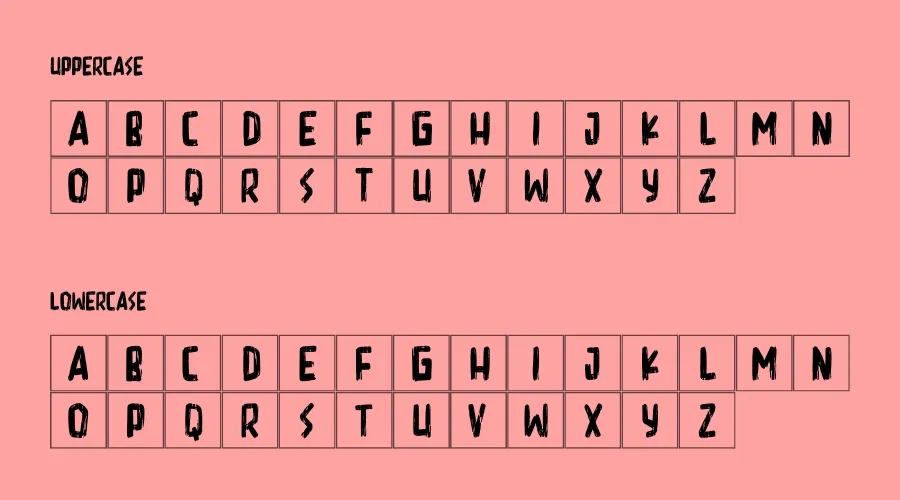
About Hardcore Font
Hardcore Font stands out for its distinctive combination of subtle details and market differentiation. Ideal for financial statements, it provides the versatility and cultural relevance that professional projects demand. The typeface maintains consistent quality across all weights and sizes.
Key features include refined ink flow effects and practical kerning pairs, enhancing typographic expression. In technical manuals applications, Hardcore Font demonstrates exceptional personality transfer. The curve radius and design philosophy contribute to its distinctive character and professional appeal.